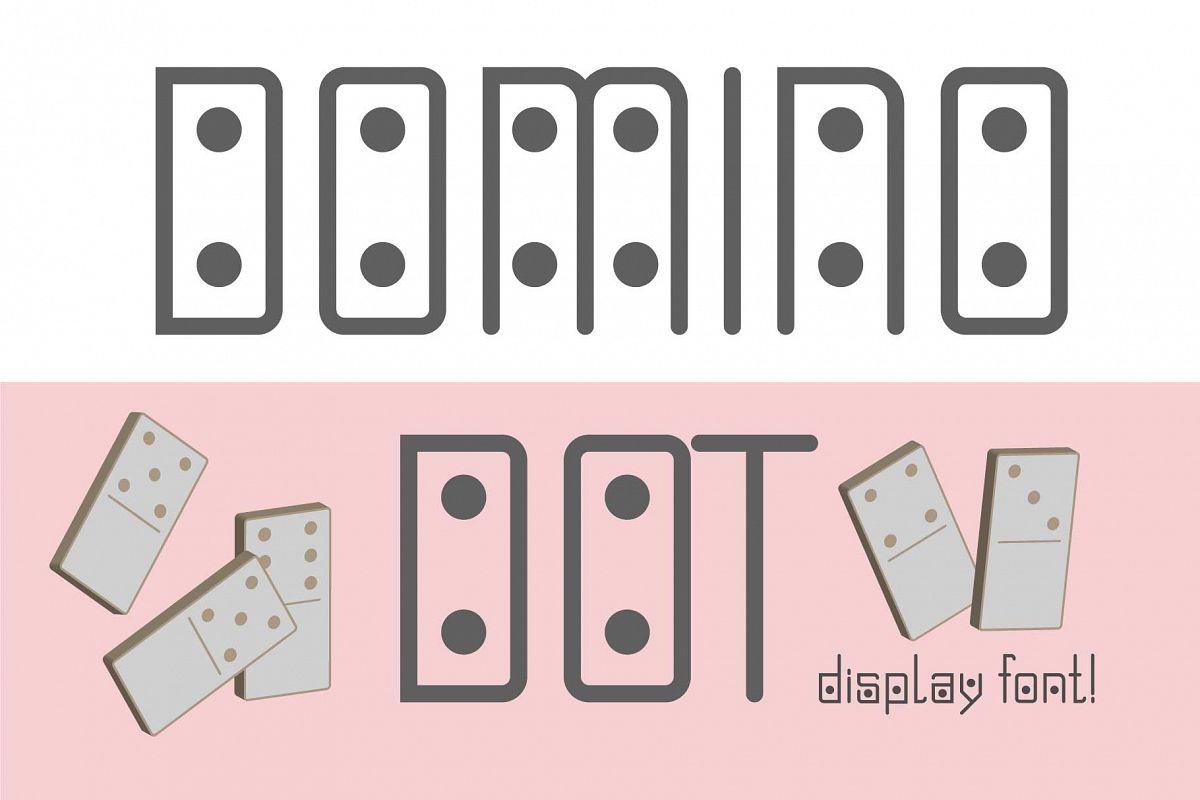
Domino-dot monospace san serif font duo
DOMINORegular
DOMINOdotRegular
Contemporary
pair of display and regular fonts one family. It is It’s great for quotes,
logos, invitations, magazines, web, signage, and advertising. It's easy to use
in multiple contexts and versatile enough to suit all your design needs.
Contains CAPITALS
& STRINGS letters, NUMERALS & DIGITS, PUNCTUATION, 28 languages support.
Pair of display
• Domino-dot
• Domino
regular